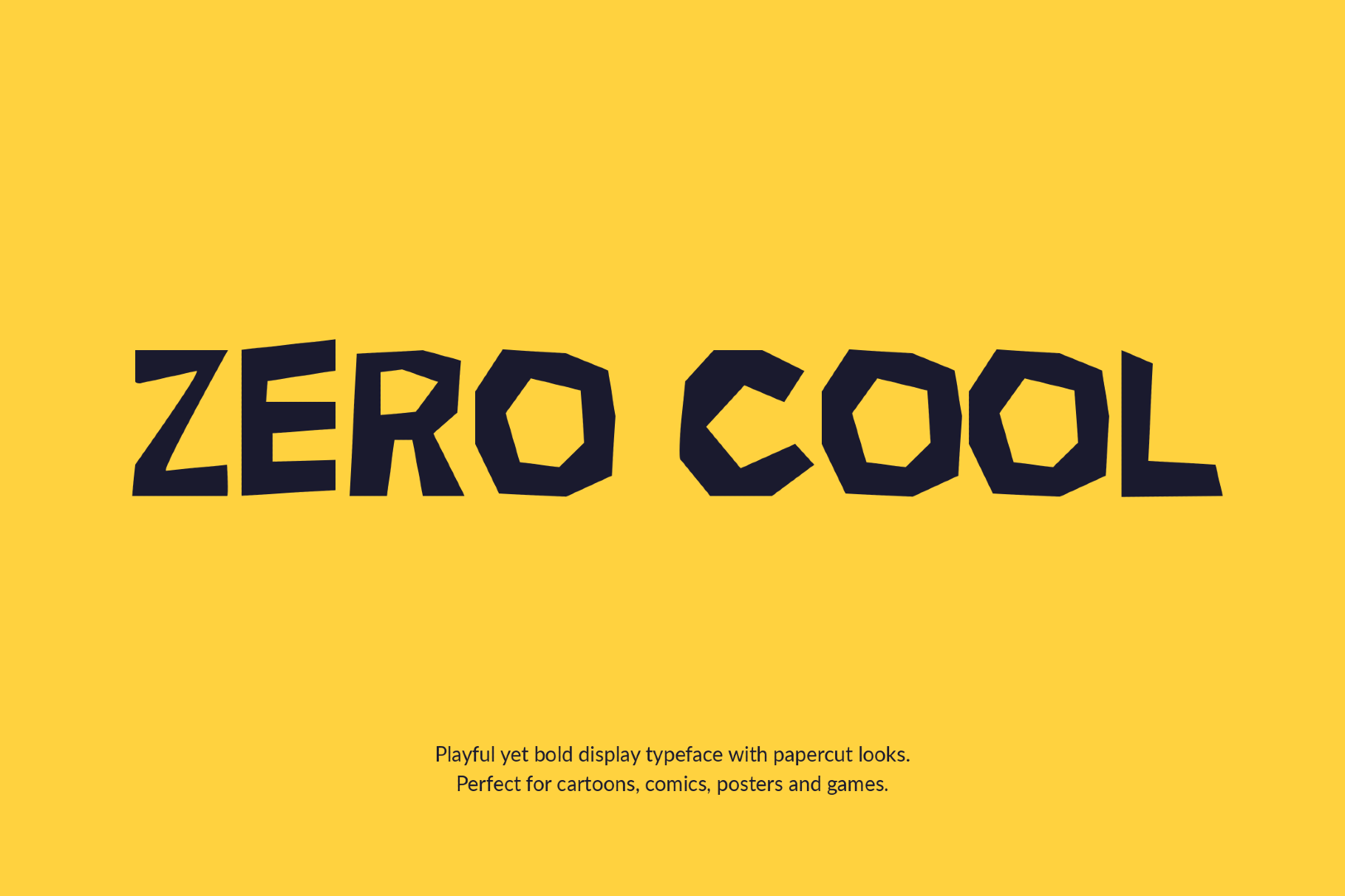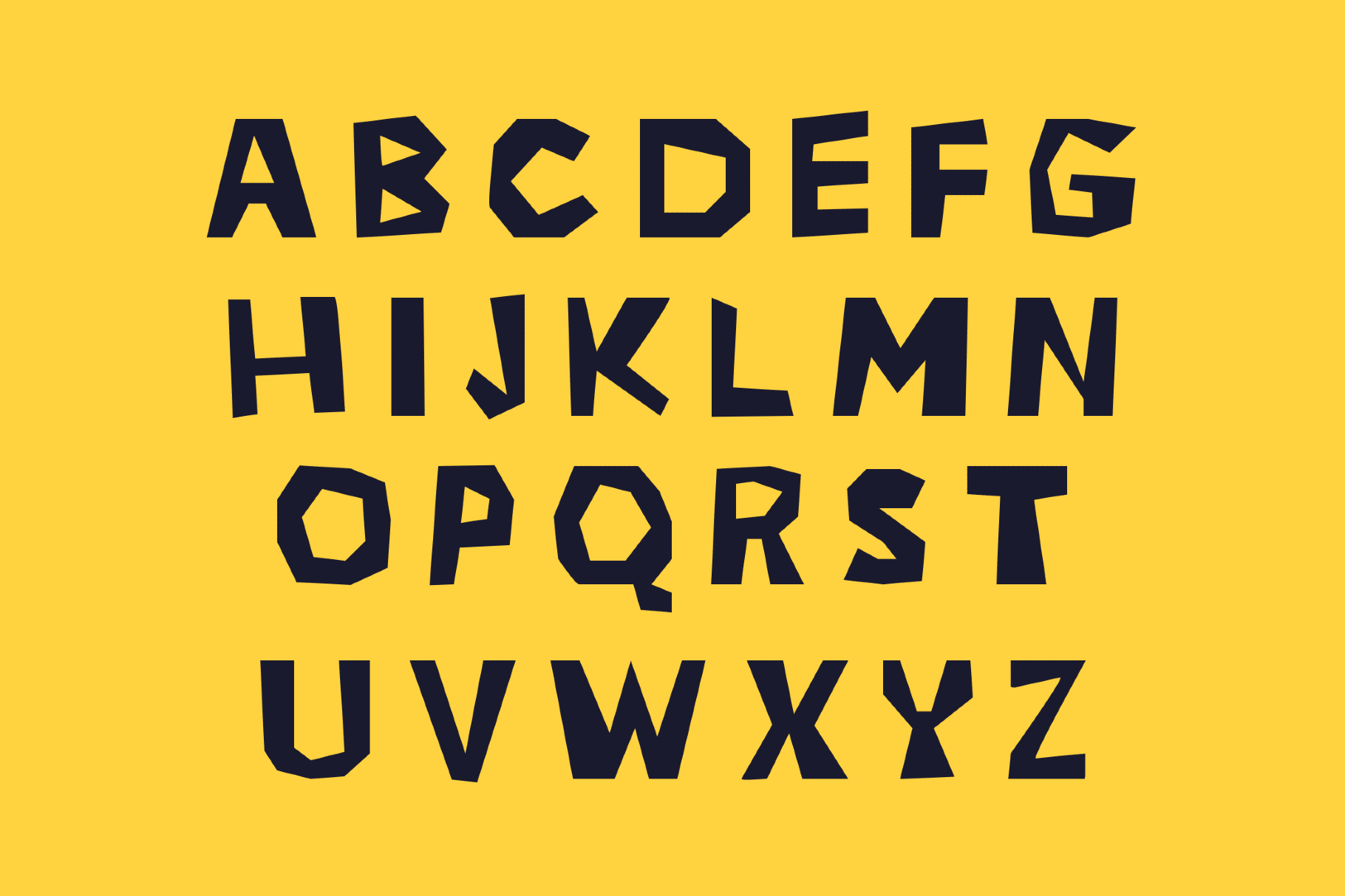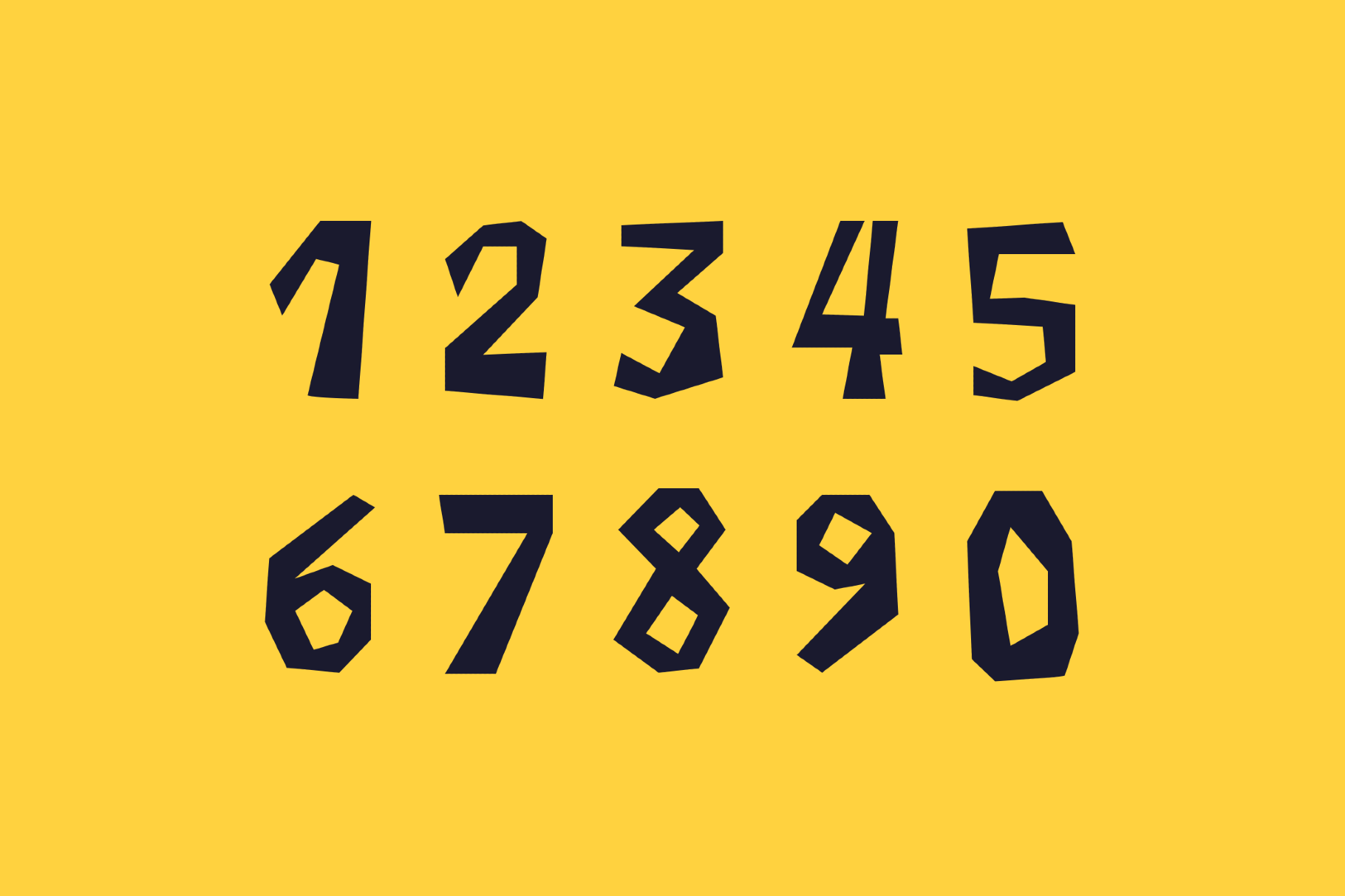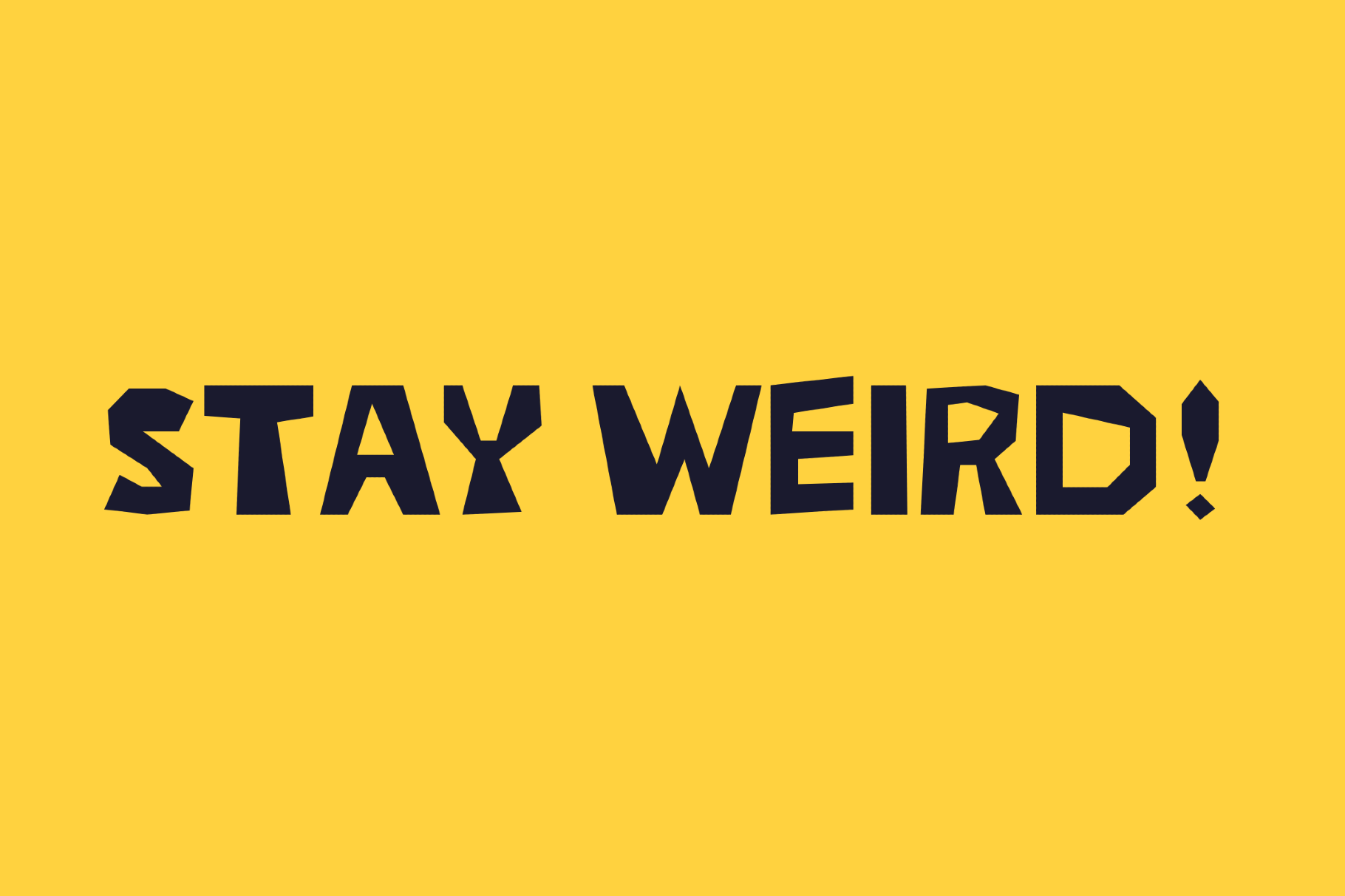
Zero Cool - Playful School Font
ZeroCool
Zero Cool is a playful, freaky & funny font with papercut edges and chunky cartoon energy, recalling cut-paper animation, comic-book sound effects, and arcade titles from the 1990s. It lands well on game graphics, comic covers, poster headlines, sticker designs, kids’ branding, packaging, and social posts.
- Uppercase letters